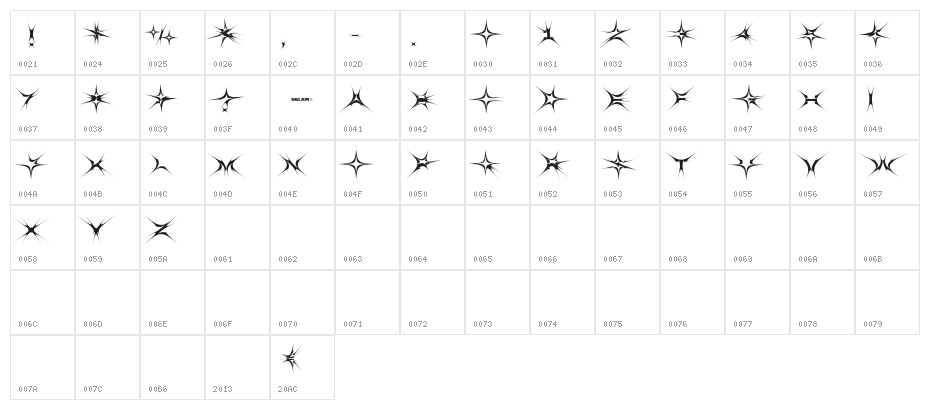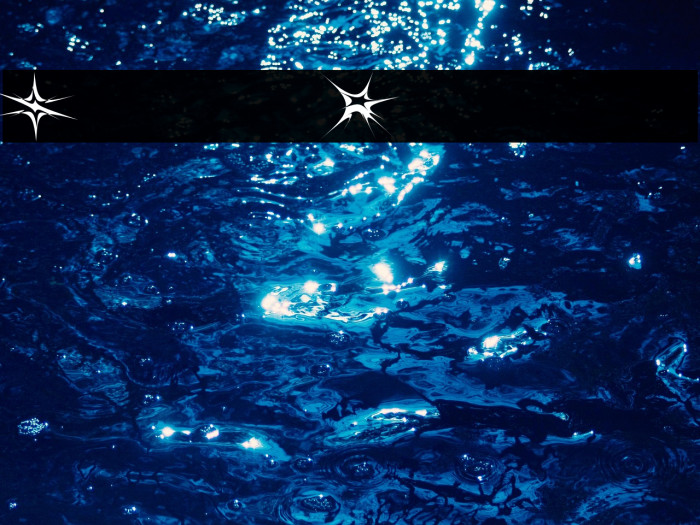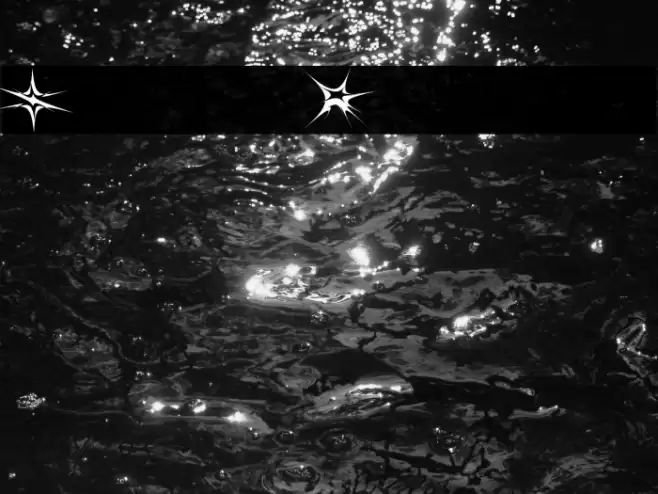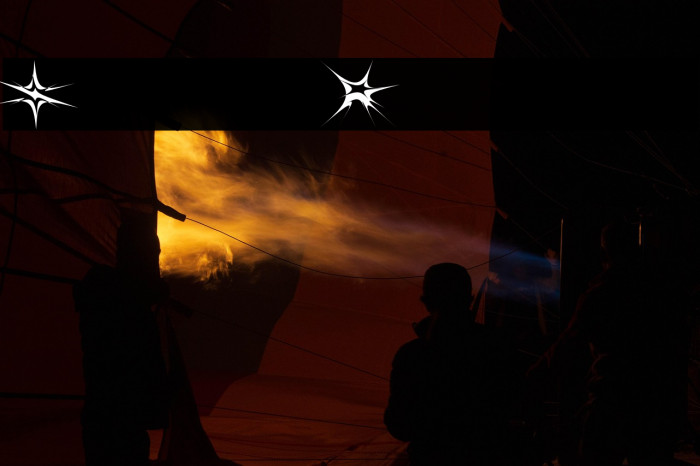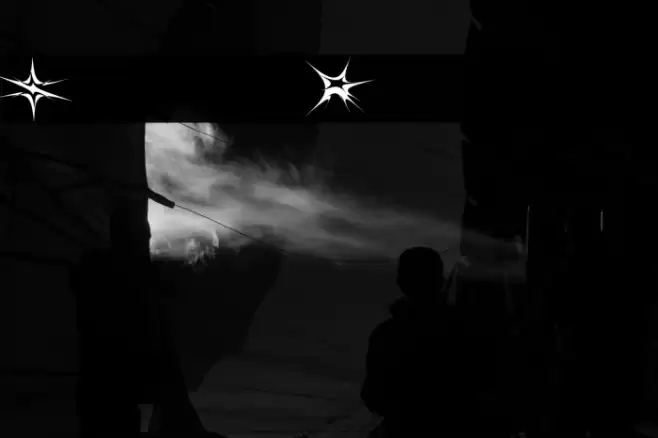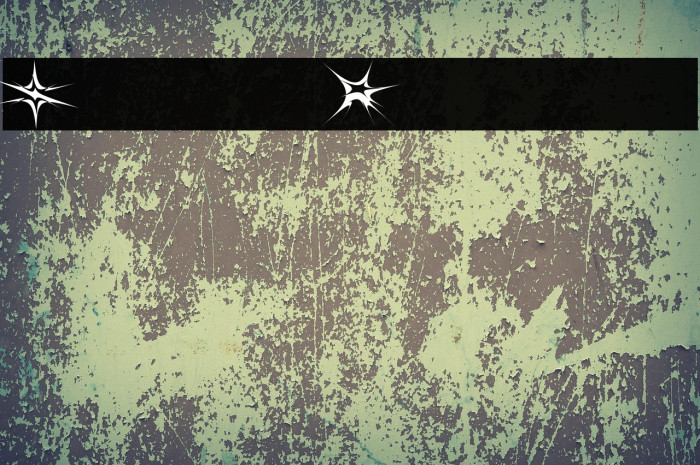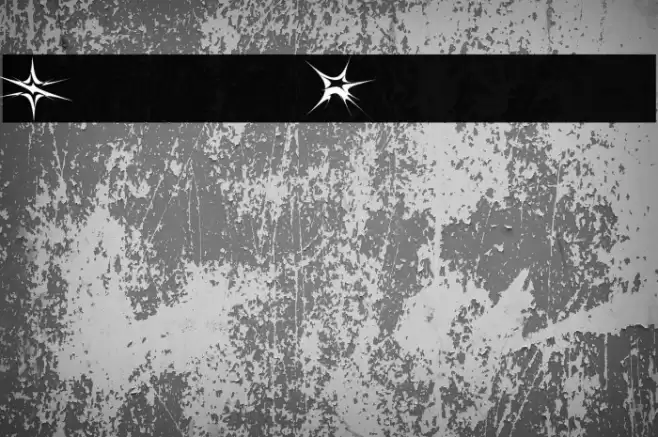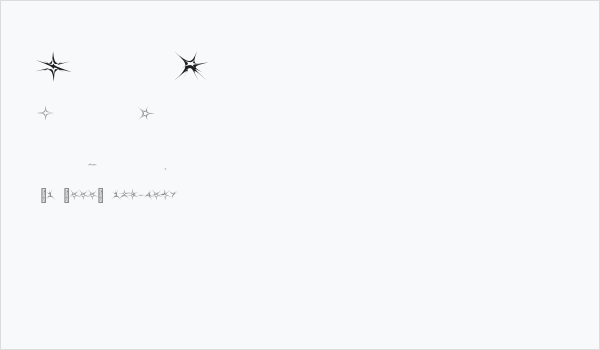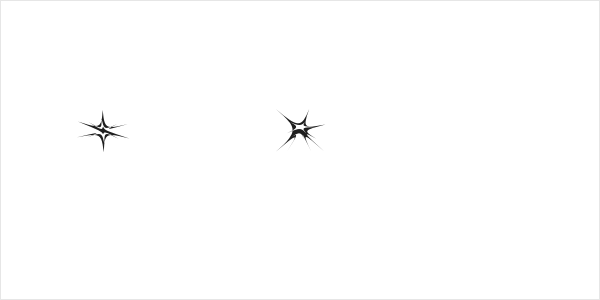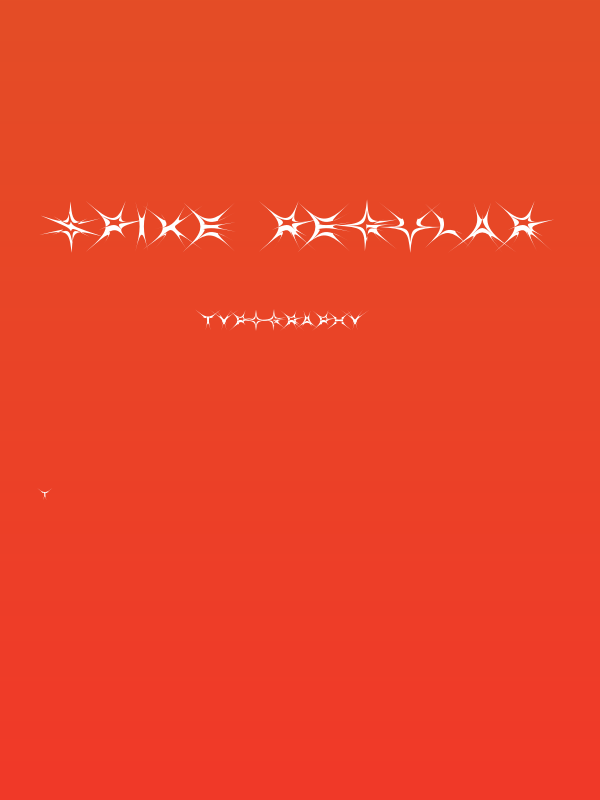
Spike Regular Font
Spike Regular Description
This font features a highly decorative and spiky design, reminiscent of barbed wire or sharp thorns. Each character is crafted with elongated, pointed edges that give it a fierce and edgy appearance. The style is consistent across all characters, maintaining a uniform look that emphasizes its aggressive and bold nature. The font lacks traditional readability, focusing instead on making a strong visual impact. It is not suitable for body text but excels in creating striking headlines or logos that demand attention. The absence of lowercase letters and numbers further emphasizes its decorative purpose.